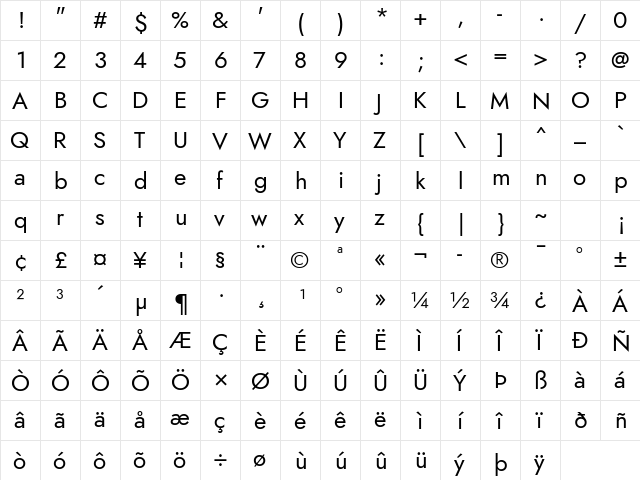
Renner* Book Font Preview
Renner* Book
Renner* Book Font Details
Design Context for Renner* Typeface
Renner* offers clean, dependable letterforms without strong stylistic allegiance, making it a practical choice for designers who need flexibility.